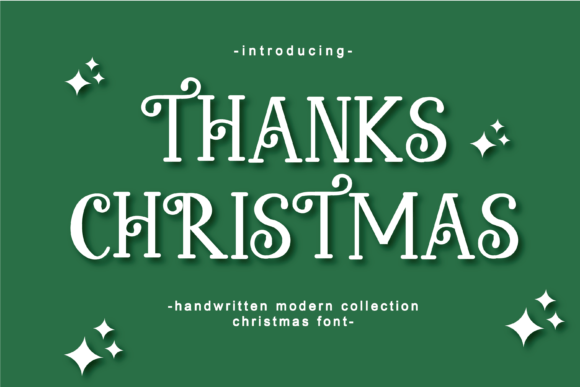
Thanks Christmas playful and festive typeface that captures the youthful spirit of the holiday season. With its fun and quirky design, this font adds a touch of holiday cheer to your Christmas-themed designs.This font dedicated to awesome celebration days is perfect for writing wedding invitations, cards, or any other design that requires a soft, characterful touch!